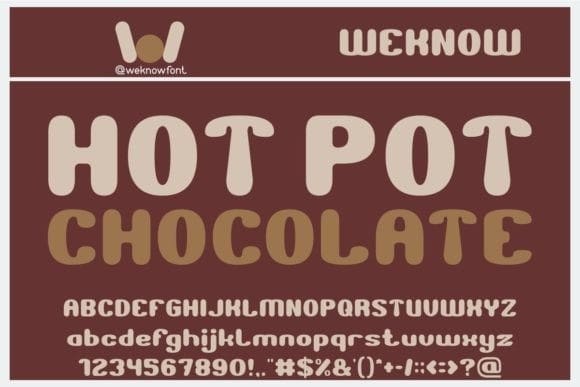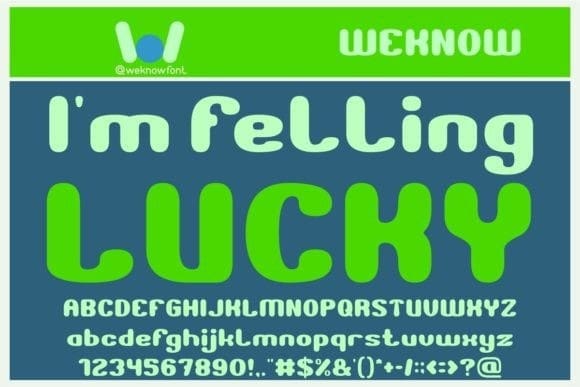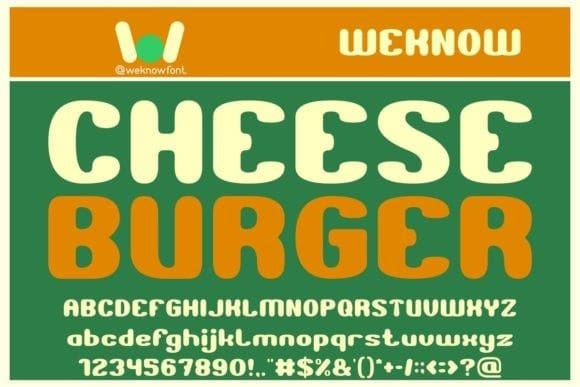
Cheese Burger Typeface
Cheese Burger Font, is a cool and unique display font. Add it to each of your party invitations, swimming gathering, or pretty much any design that requires a touch of youth and joy.